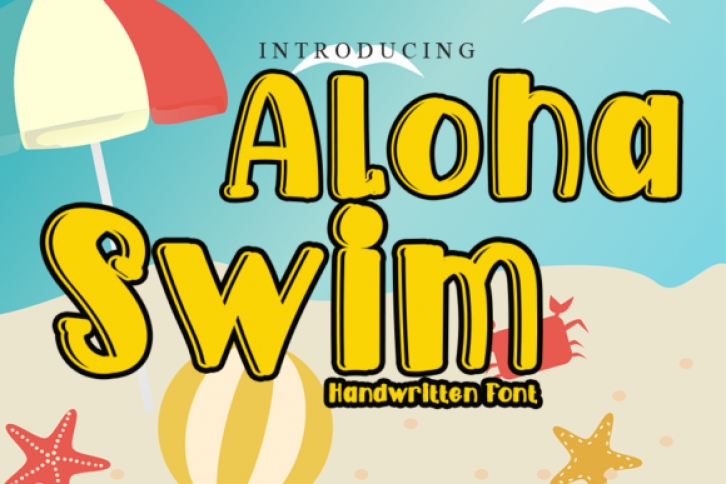
Aloha swim is a bold and elegant handwritten font. It has beautiful and well balanced characters and as a result, it matches a wide pool of designs. Add it to your most creative ideas and notice how it makes them come alive!